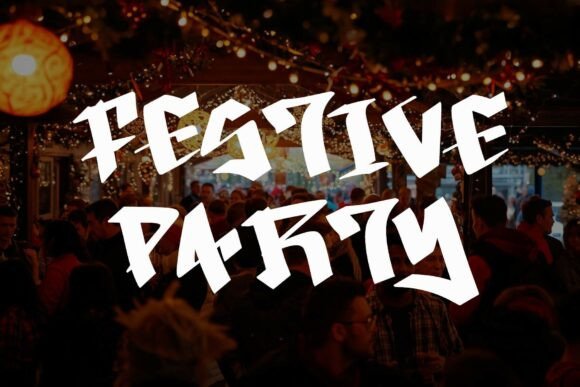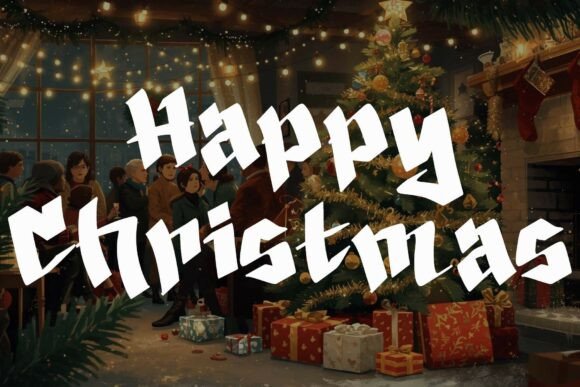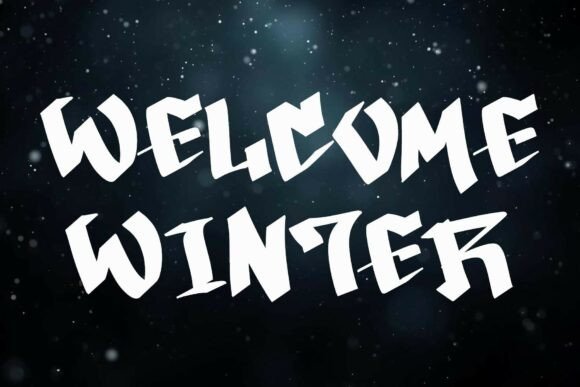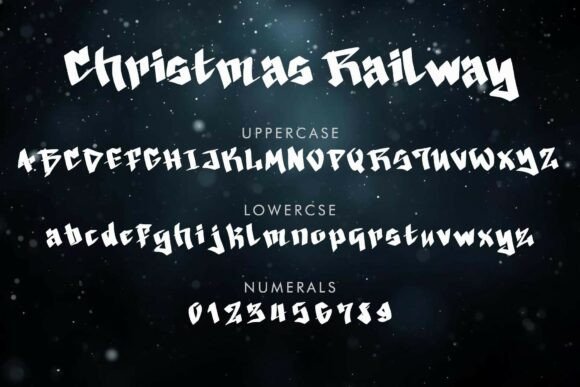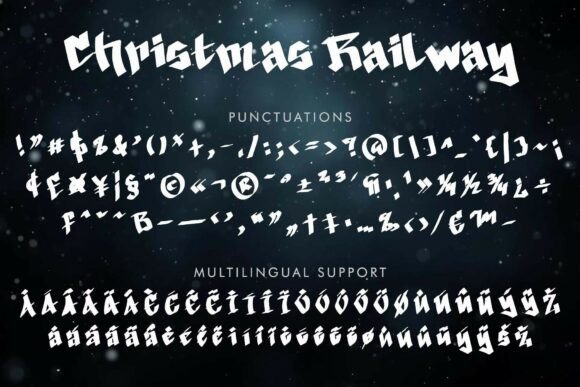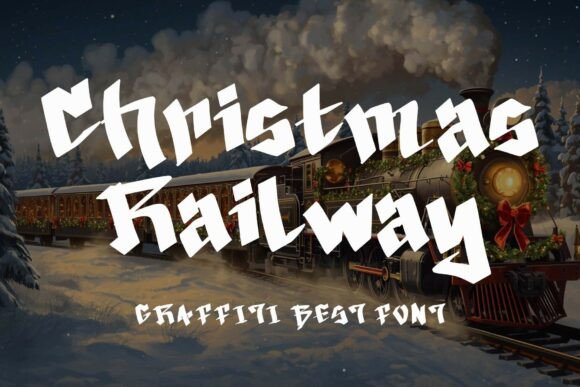
Christmas Railway Font: The Ultimate Display Font for a Bold Statement
Are you ready to make a dramatic entrance with your design project? Look no further than Christmas Railway Font, a bold, angular display font that’s inspired by graffiti and urban style. This powerful typeface is perfect for making a statement, whether you’re designing a headline, poster, gaming layout, or any project that needs an edgy, high-contrast look.
What Makes Christmas Railway Font So Special?
Christmas Railway Font features sharp edges and an aggressive lean, making it stand out from the crowd. Its bold, angular design is reminiscent of graffiti and urban style, giving it a unique and edgy feel. Despite its name, this font is not just limited to Christmas or winter projects – it’s perfect for any design that needs a bold, eye-catching look year-round.
Christmas Railway Font is incredibly versatile, making it suitable for a wide range of design projects. Here are just a few ideas to get you started:
• Headlines and posters: Make a bold statement with your headline or poster design.
• Gaming design: Add an edgy, high-contrast look to your gaming layout.
• Social media: Stand out on social media with bold, eye-catching text.
• YouTube: Make your YouTube video titles and descriptions pop.
• Logos and branding: Create a memorable logo or brand identity with Christmas Railway Font.
• Stickers and prints: Add a bold, urban touch to your stickers and prints.
• Banners and signs: Create eye-catching banners and signs for holidays, events, or promotions.
• Tattoos and body art: Use Christmas Railway Font as inspiration for tattoo designs or body art.
Why Choose Christmas Railway Font?
So why choose Christmas Railway Font for your design project? Here are just a few reasons:
• Maximum visibility: Christmas Railway Font is designed to stand out, making it perfect for projects that need to grab attention.
• Unforgettable statement: This font makes a bold statement, ensuring your design is memorable.
• Versatility: Christmas Railway Font can be used for a wide range of design projects, from Christmas and winter layouts to gaming and social media designs.
• Edgy, high-contrast look: This font features sharp edges and an aggressive lean, giving it a unique, edgy feel.
Tips for Using Christmas Railway Font
Here are a few tips for getting the most out of Christmas Railway Font:
• Use it sparingly: Due to its bold, eye-catching design, it’s best to use Christmas Railway Font sparingly to avoid overwhelming the viewer.
• Pair it with complementary fonts: Pair Christmas Railway Font with complementary fonts to create visual interest and add depth to your design.
• Experiment with colors: Try out different colors and textures to add an extra layer of interest to your design.
If you’re looking for a bold, eye-catching font that makes a statement, look no further than Christmas Railway Font. With its sharp edges, aggressive lean, and urban-inspired design, this font is perfect for a wide range of design projects. Whether you’re designing a headline, poster, gaming layout, or social media post, Christmas Railway Font is sure to grab attention and leave a lasting impression.